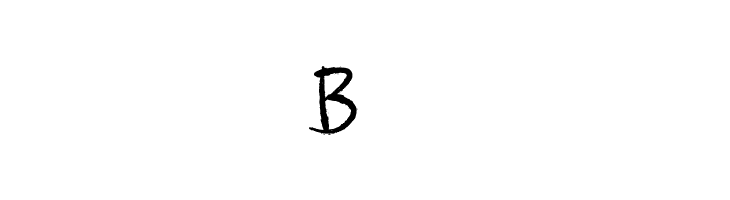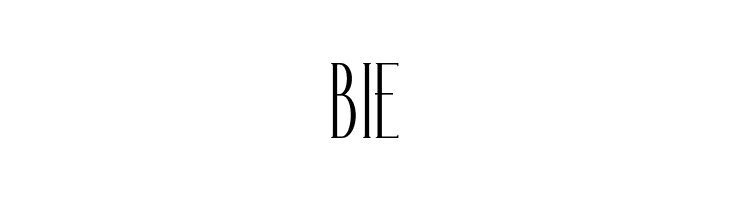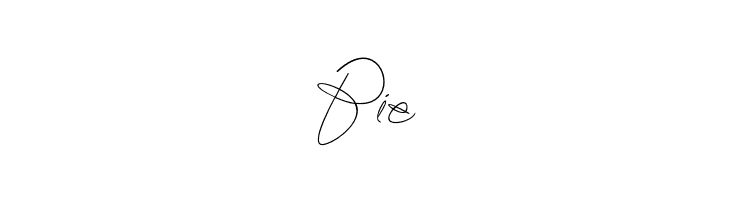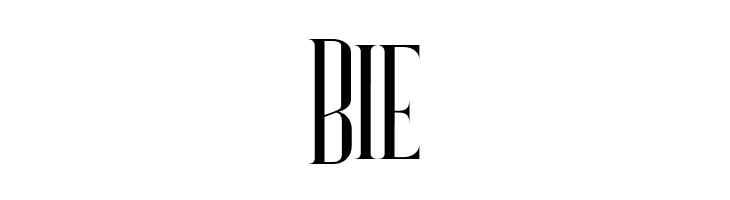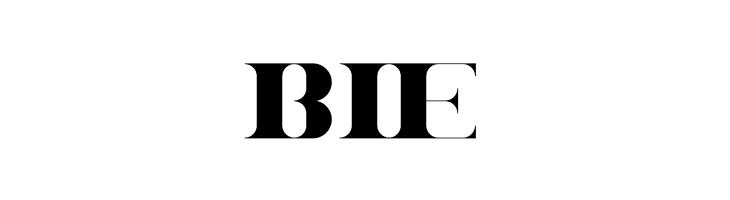
A high-contrast, elegant typeface with refined serifs and a luxurious style.
A high-contrast, elegant font with dramatic flourishes and refined style.
A modern, high-contrast font with elegant and sophisticated styling.
A tall, elegant font with high contrast and narrow characters.
A bold, hand-drawn font with an energetic and playful style.
An elegant, high-contrast serif font with elongated characters.
An elegant, high-contrast script font with flowing, cursive letters.
A bold, elegant serif font with high contrast and refined details.
An elegant, high-contrast font with elongated, narrow characters.
A bold, high-contrast serif font with modern cut-out details.